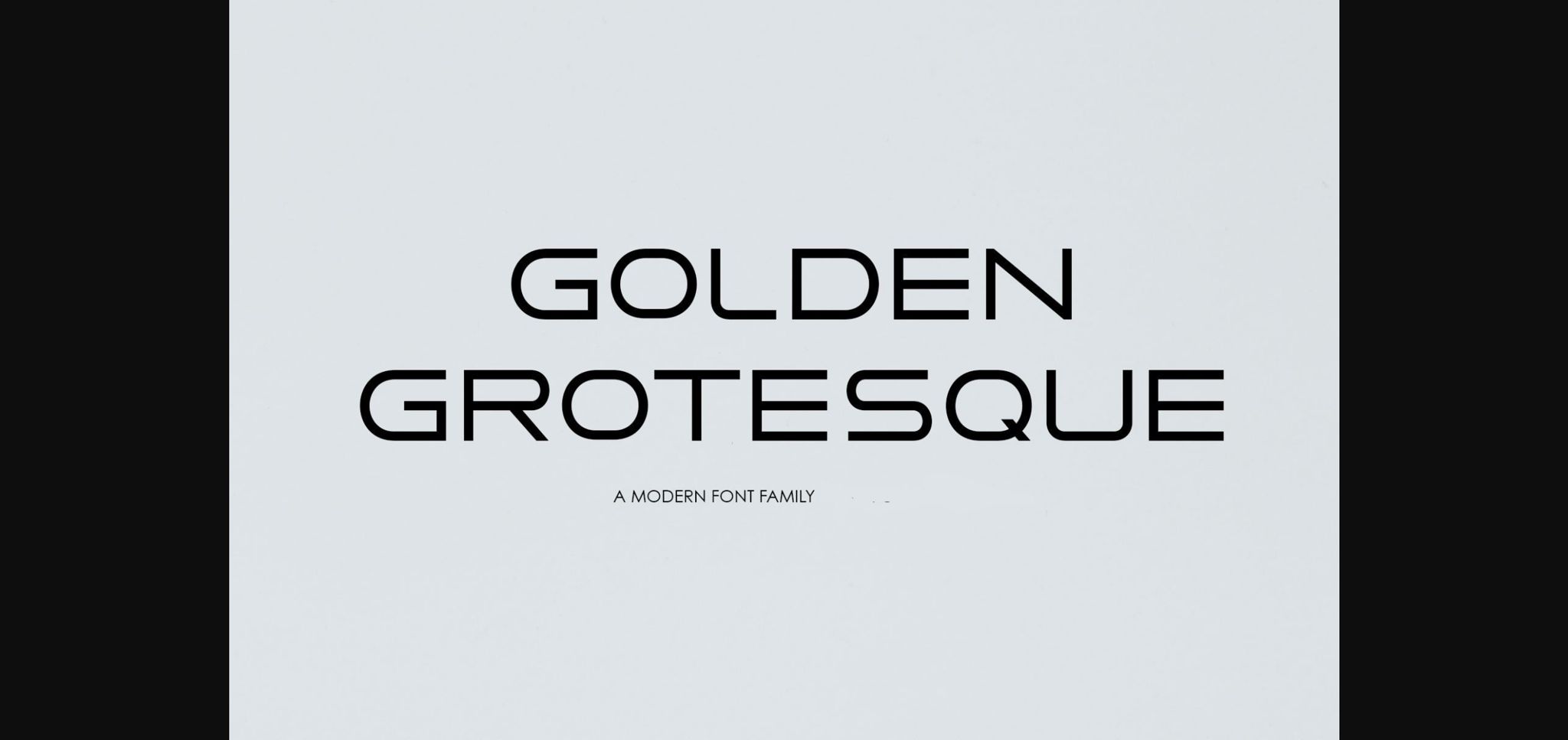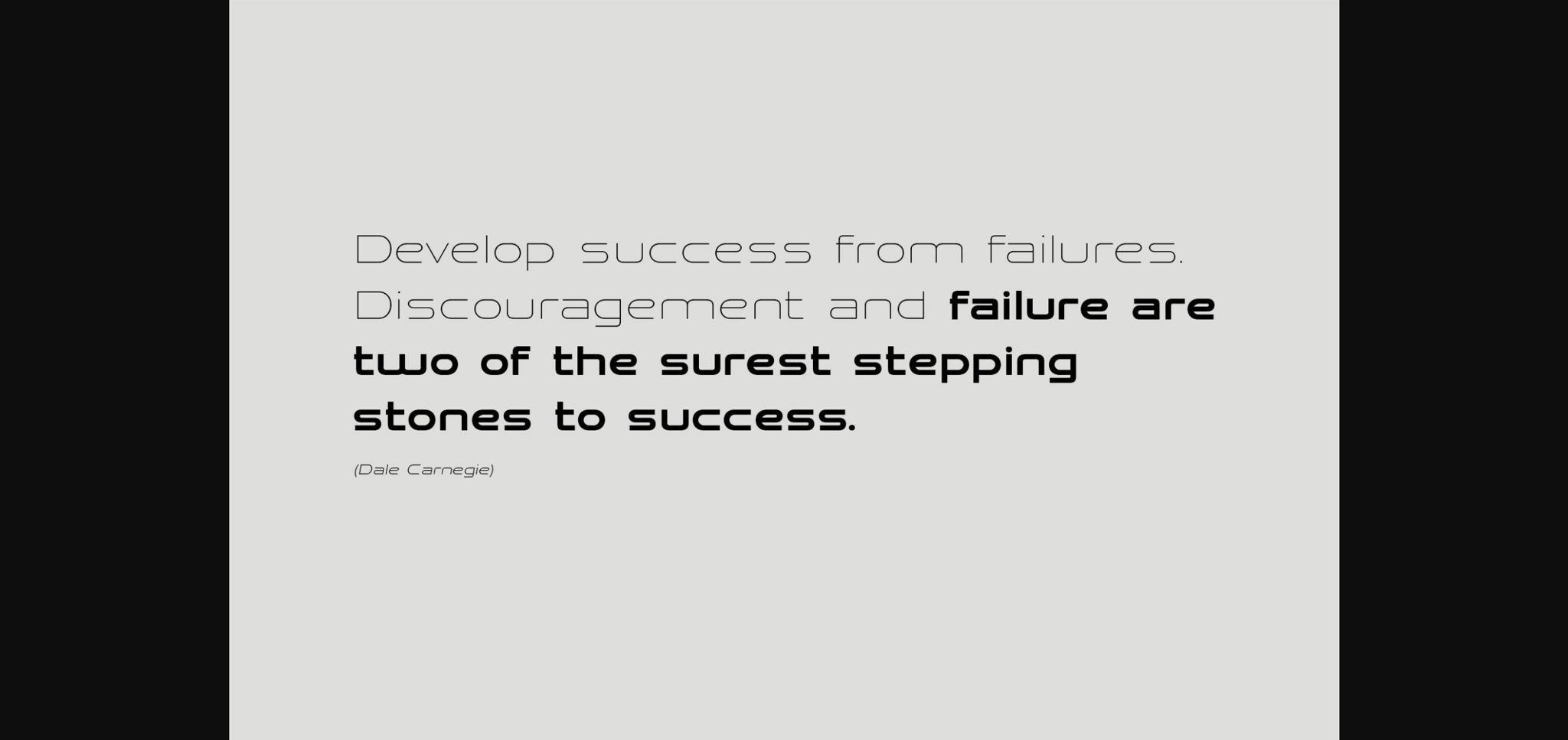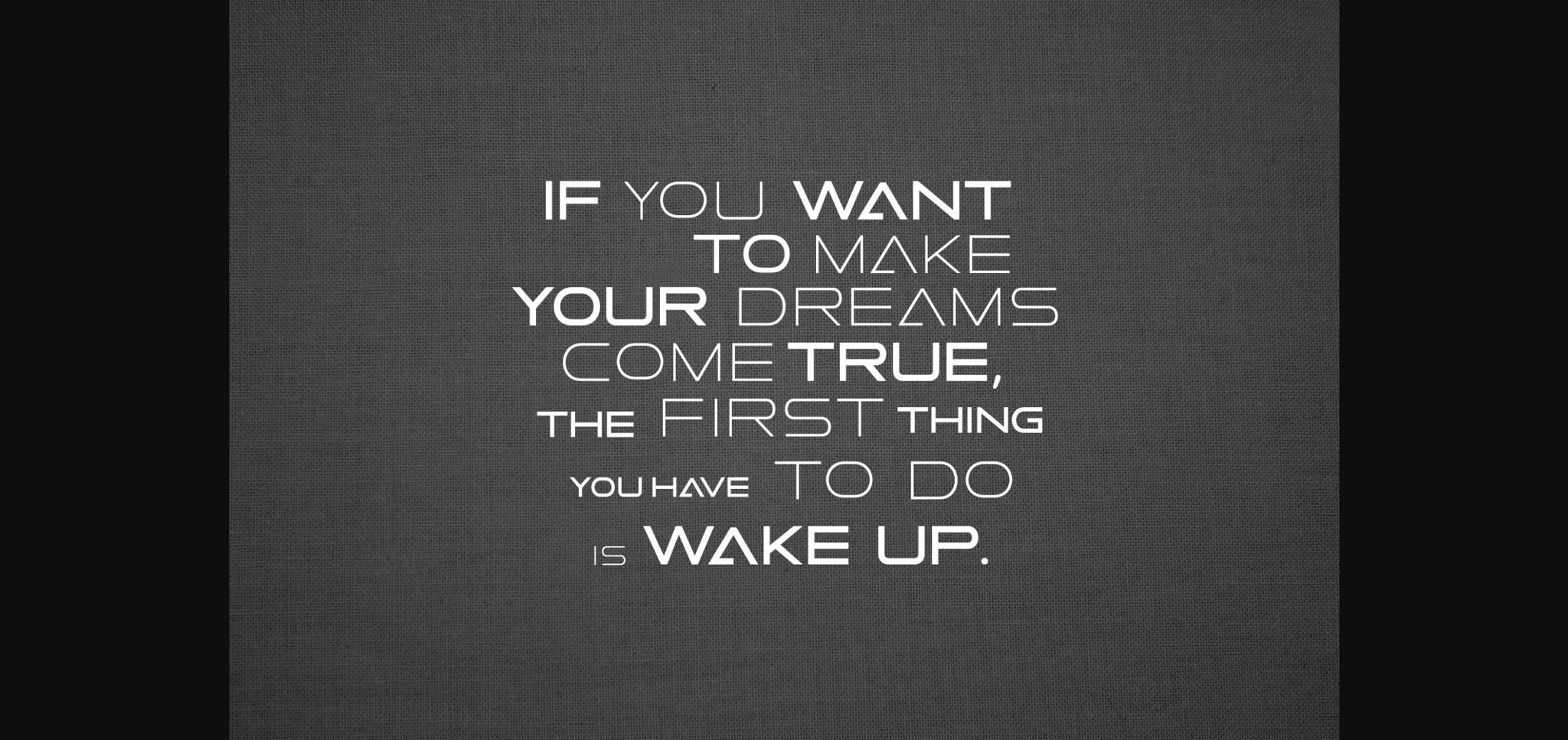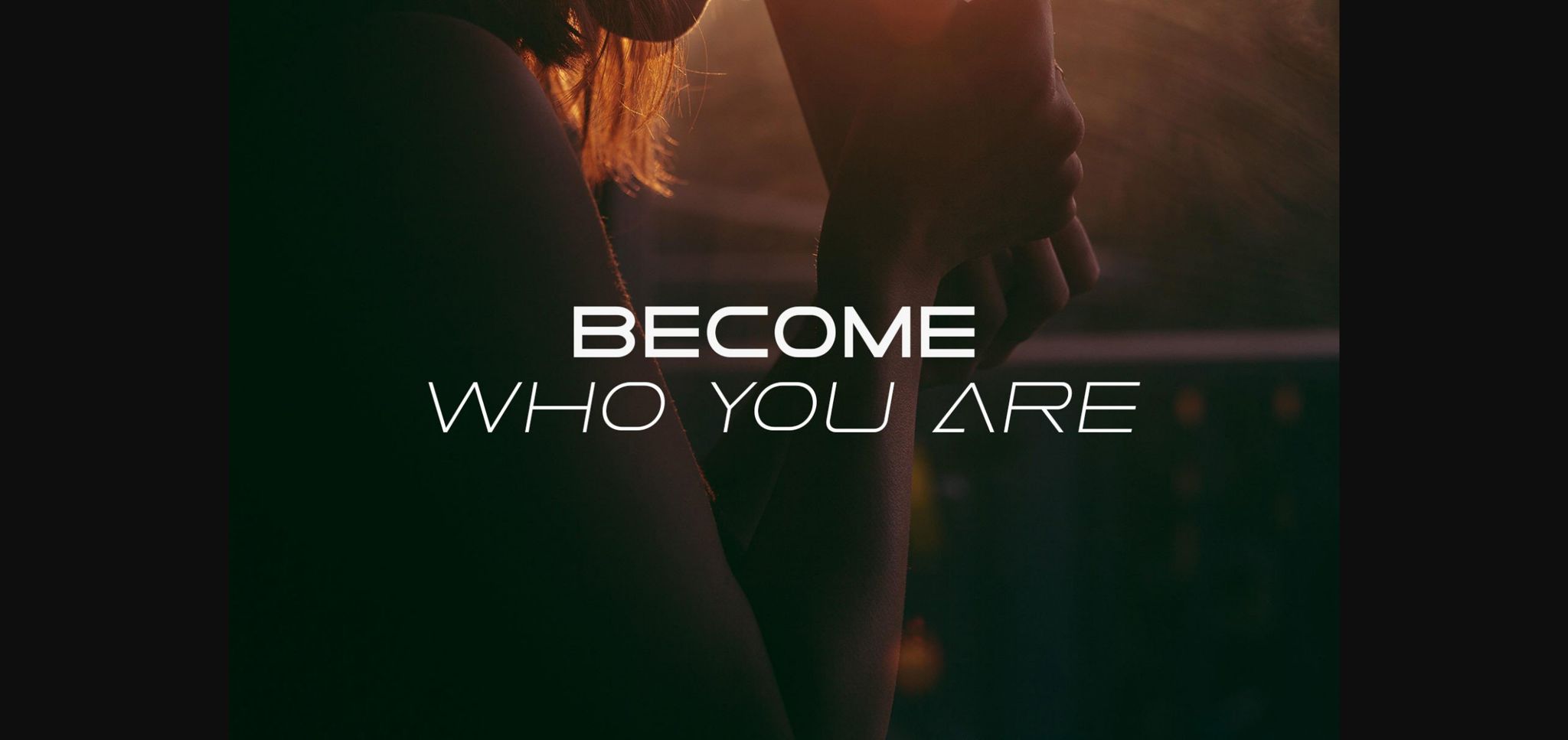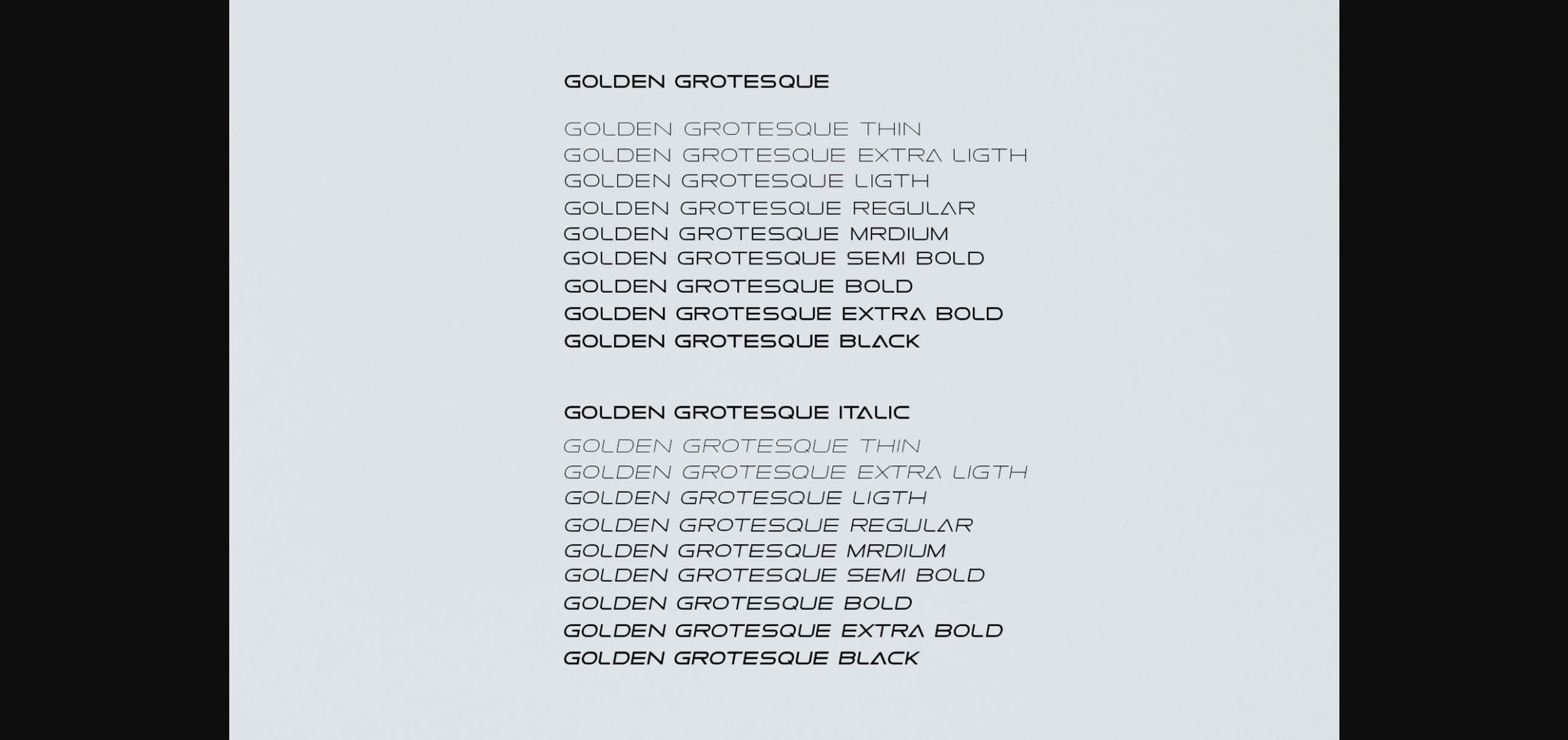
About Golden Grotesque Font
Golden Grotesque is a classic sans serif font. No matter the topic, this font will be an incredible asset to your fonts’ library, as it has the potential to elevate any creation.